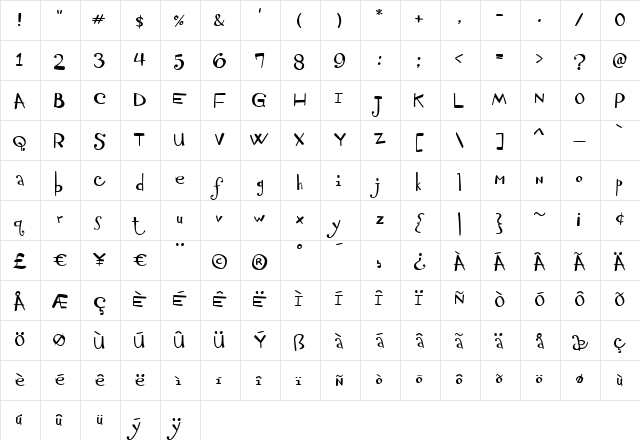
DayDream Regular
| Foundry | Fonthead Design Inc. |
| Designer | Ethan Dunham |
Design Context for DayDream Typeface
DayDream is a composed and adaptable typeface that performs quietly and consistently across a wide range of design contexts.